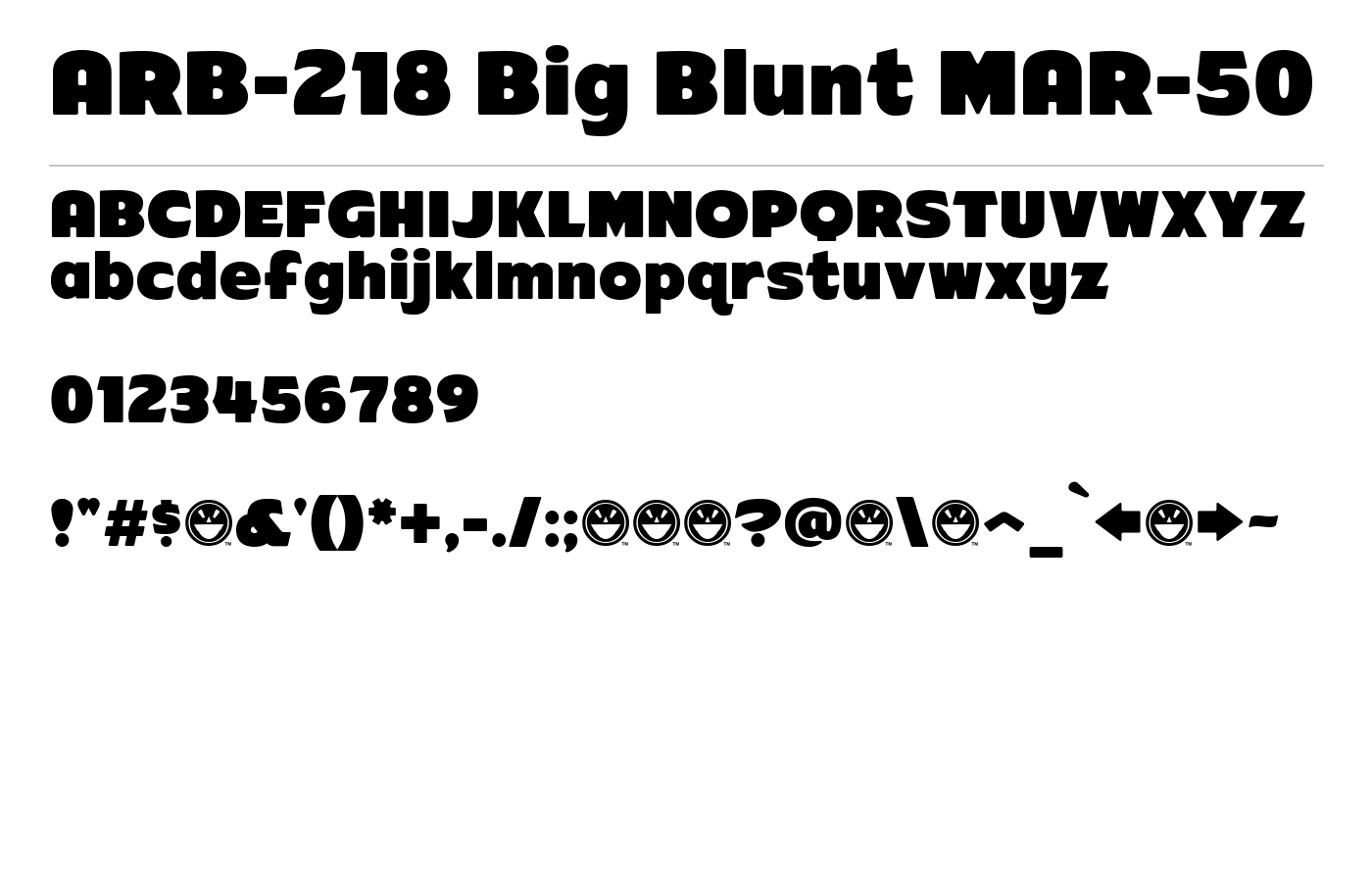
ARB-218 Big Blunt MAR-50 is a bold, heavy-weight sans serif font with rounded, blunt edges that give it a playful and approachable feel. Its wide letterforms and high x-height make it highly readable, while the strong geometric shapes and thick strokes create a lively, friendly personality perfect for eye-catching headlines, logos, and branding where a fun, modern style is desired. This font works well in designs that need bold impact and a touch of character without sacrificing clarity.
ARB-218 Big Blunt MAR-50 Font
About ARB-218 Big Blunt MAR-50 Font